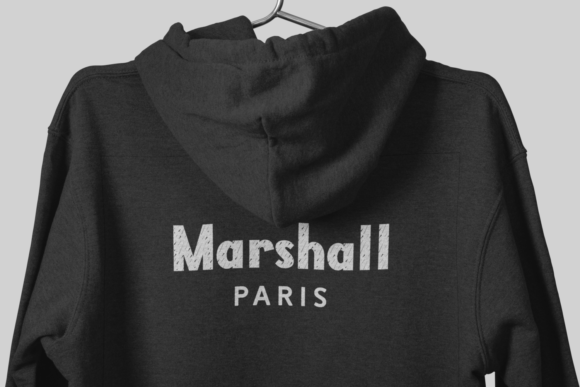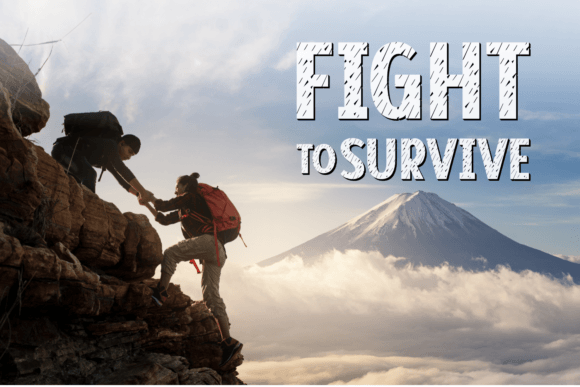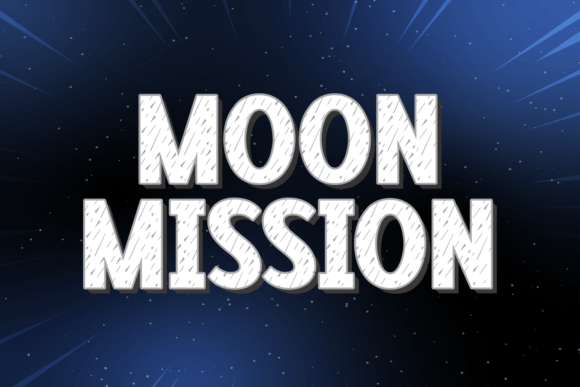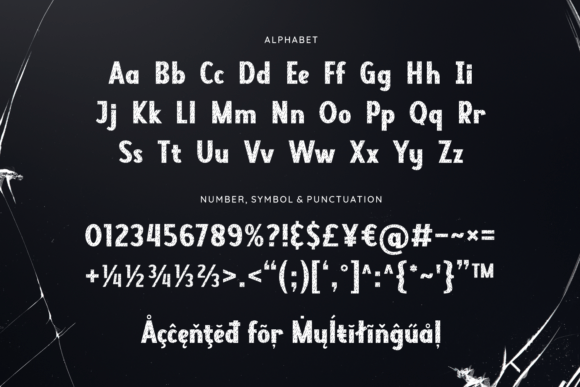
Introduction to Hello Patter Font
Have you ever stared at a blank canvas, eager to bring a creative project to life, but struggling to find the perfect font to set the tone? We’ve all been there – the perfect font can make all the difference between a mediocre design and a truly show-stopping masterpiece. That’s where the Hello Patter Font comes in – a fun and dynamic display font that’s sure to add a wow factor to any creation.
Hello Patter Font
- Designed with a unique, modern aesthetic, making it ideal for contemporary creative projects
Honest Review: Hello Patter Font
As a designer, I’m always on the lookout for high-quality design resources to enhance my creative projects. The Hello Patter Font caught my attention with its unique and playful style. ✨ I love how it adds a touch of whimsy to any design. The font is available for free download, which is a definite plus in my book.
- Unique and playful style
- May not be suitable for formal or professional designs
- Some users may find the font too busy or overwhelming
Overall, I’m impressed with the Hello Patter Font. It’s a great design resource for creative projects that require a playful and whimsical touch. While it may not be suitable for all types of designs, I highly recommend it for those looking to add some personality to their work.
Hello Patter Font
For optimal results, use the Hello Patter Font in combination with other design elements to create a cohesive and engaging visual identity. Some common use cases include:
Designing social media graphics, logos, and brand identities.
Creating presentations and documents that require a unique and creative touch.
Adding a touch of whimsy to illustrations and images.